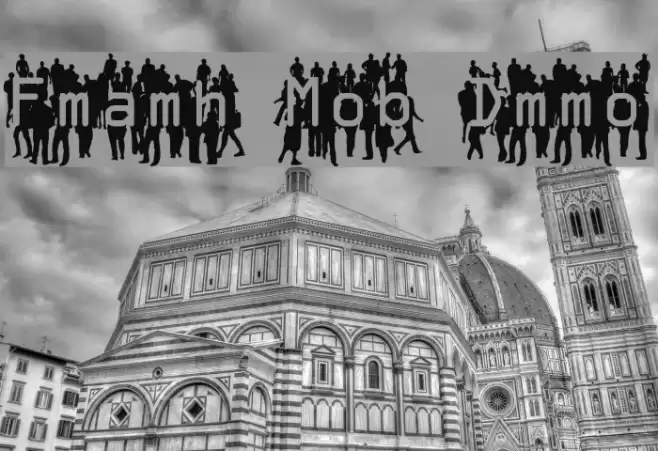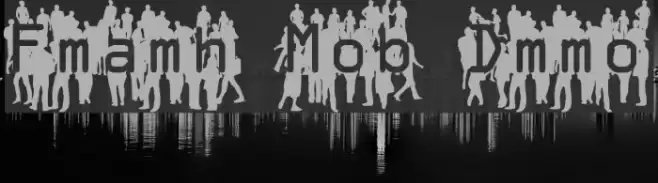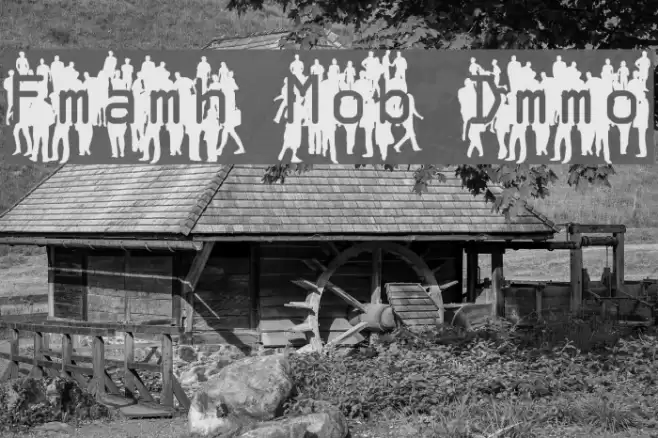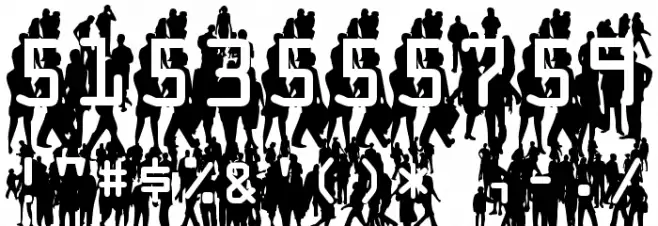
Flash Mob Demo Font
Flash Mob Demo Description
This font features a unique and dynamic design where each character is integrated with silhouettes of people, creating a lively and energetic appearance. The characters are bold and have a modern, urban feel, with a strong emphasis on movement and community. The uppercase and lowercase letters maintain a consistent style, with clean lines and a slightly condensed form. Numbers and special characters follow the same thematic design, ensuring a cohesive look across all elements. This font is visually striking and captures the essence of a flash mob, making it ideal for projects that aim to convey excitement and togetherness.
A dynamic font with silhouettes of people, embodying energy and community from Uncategorized fonts.